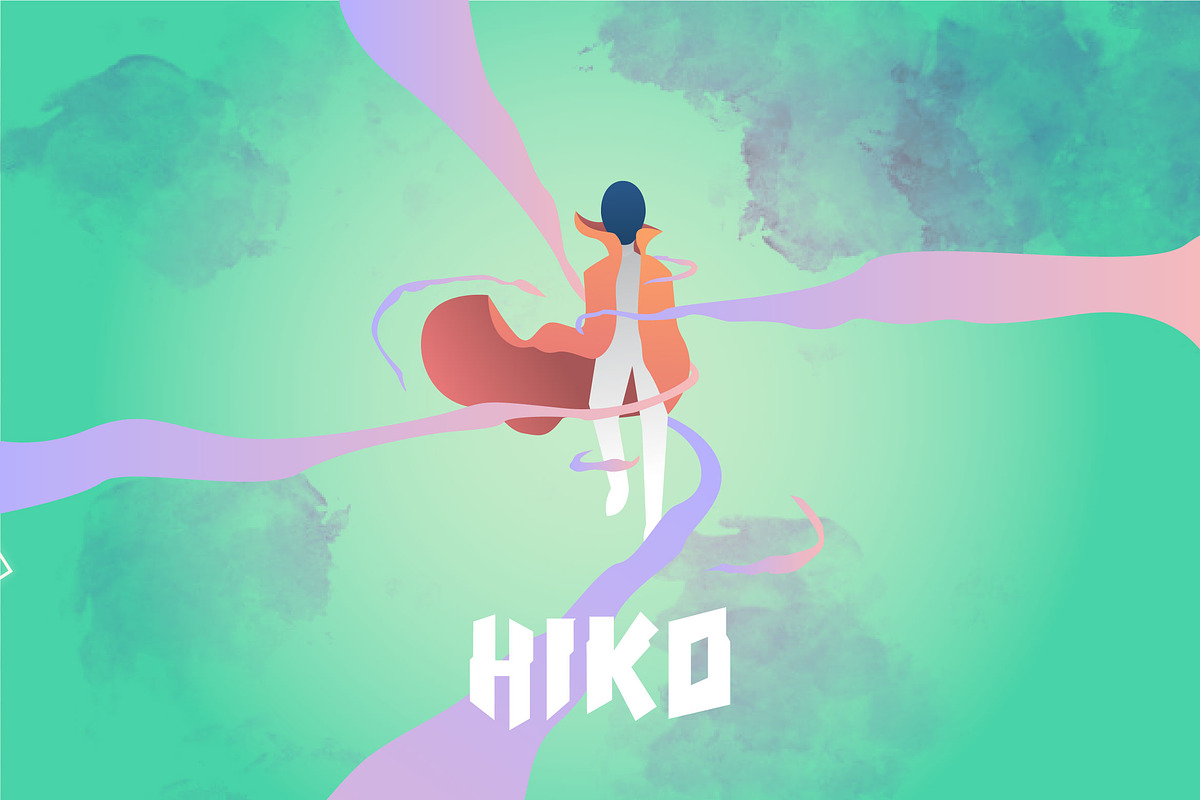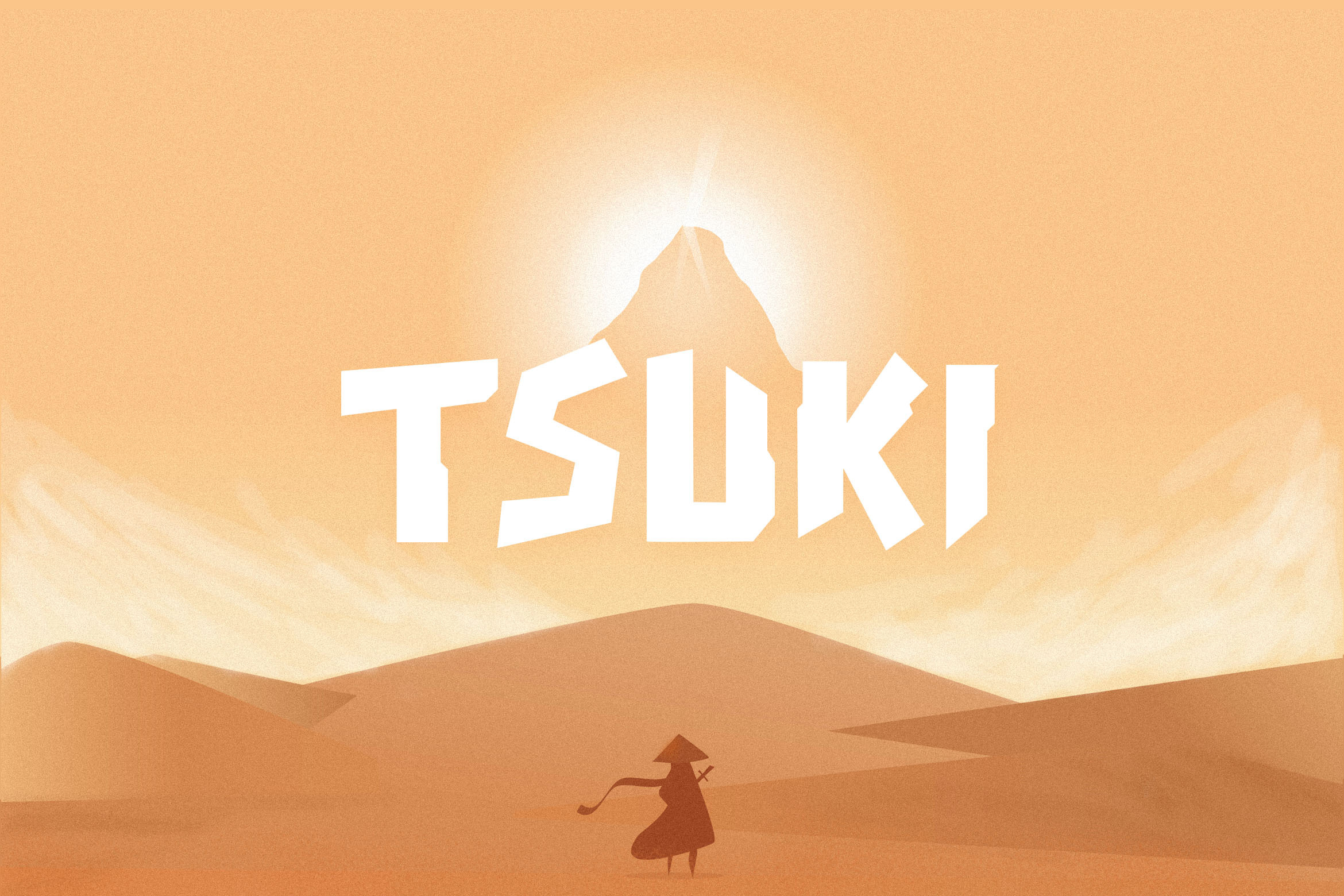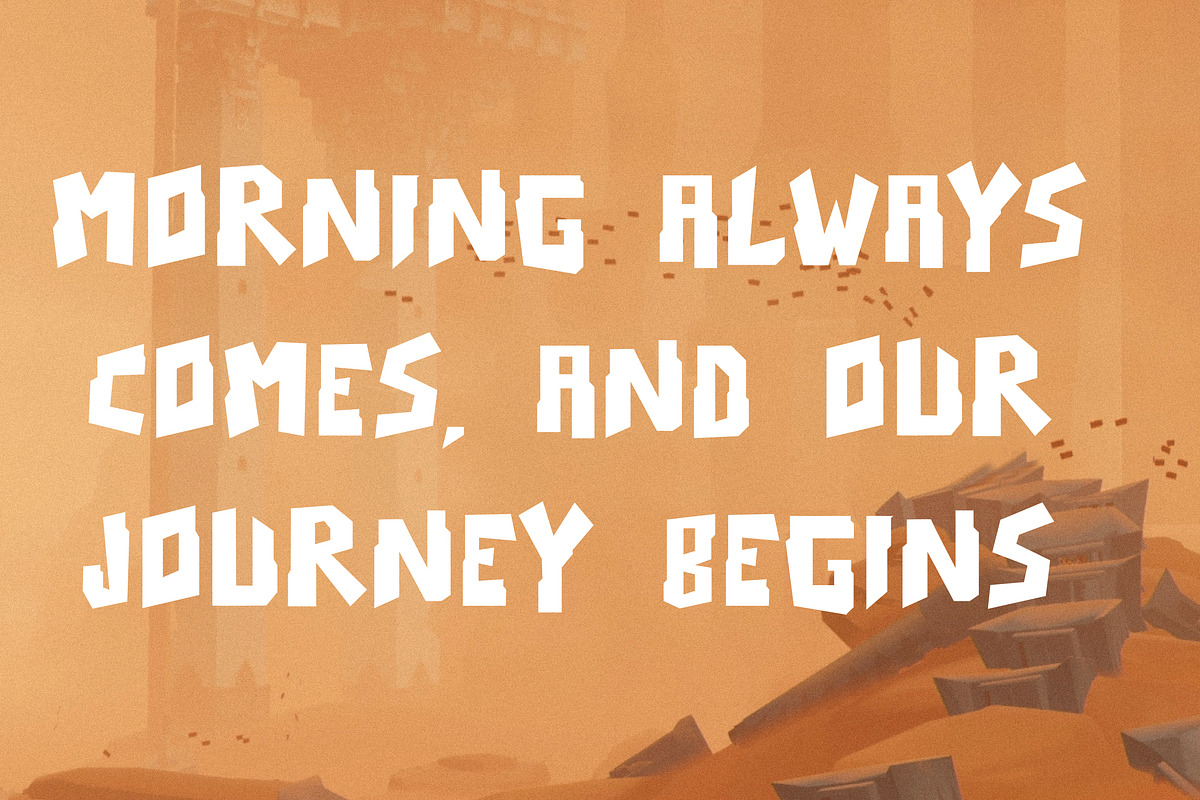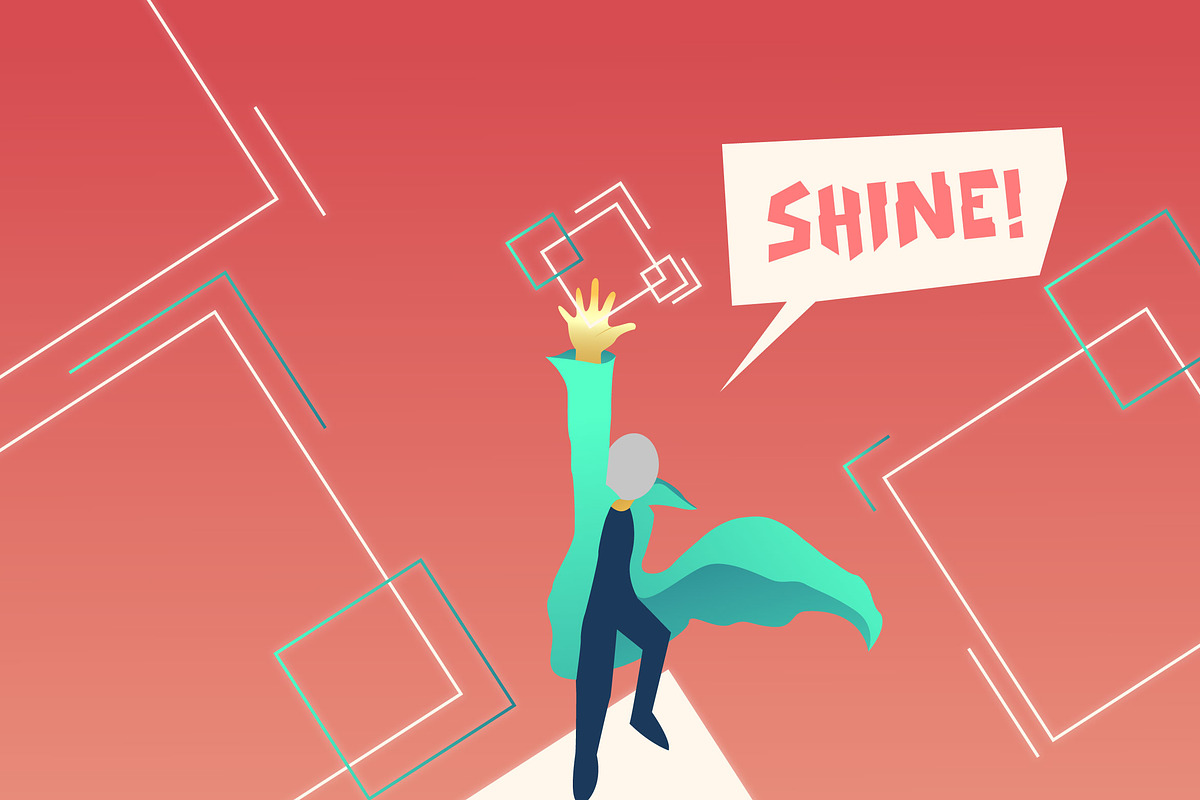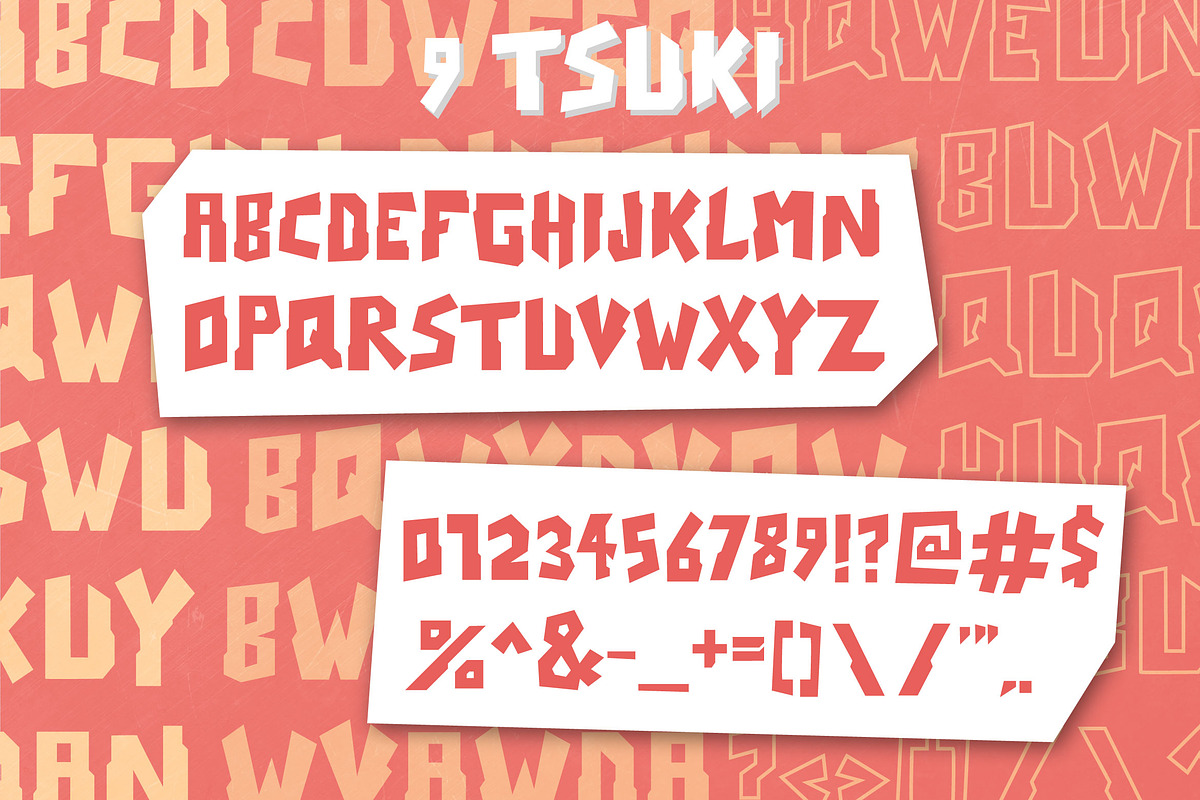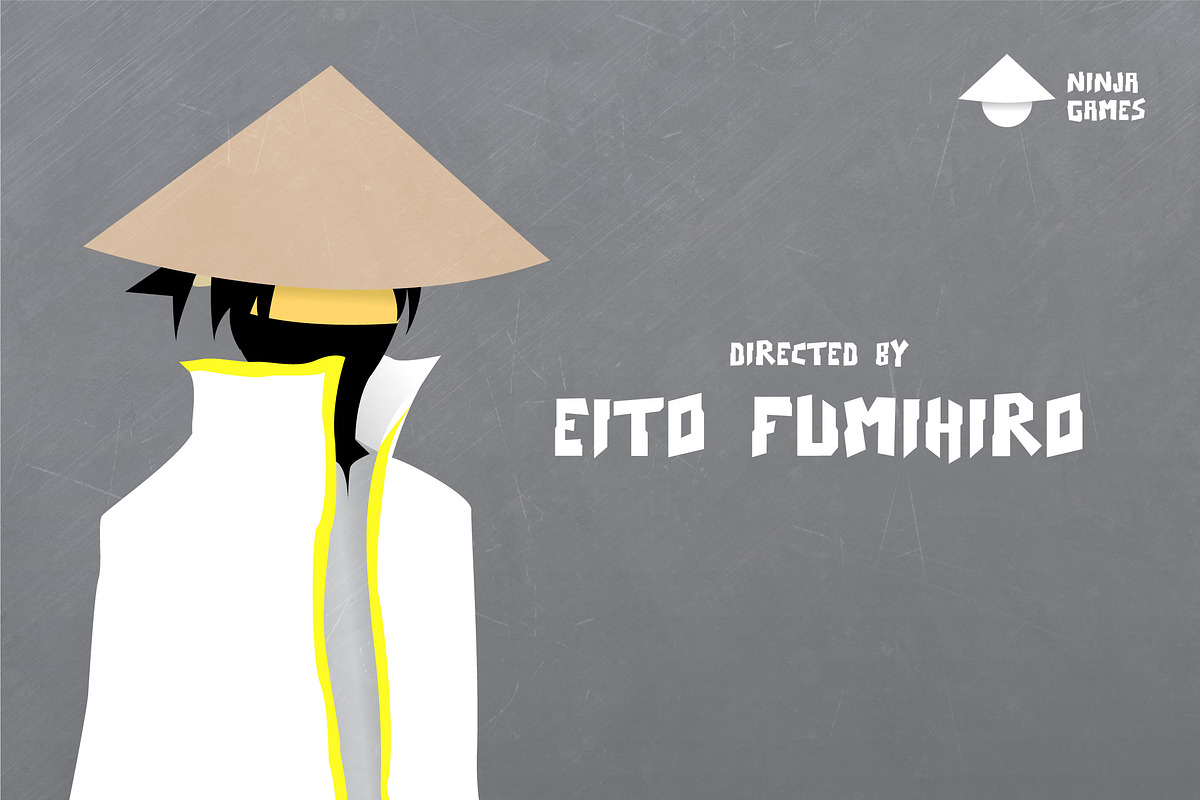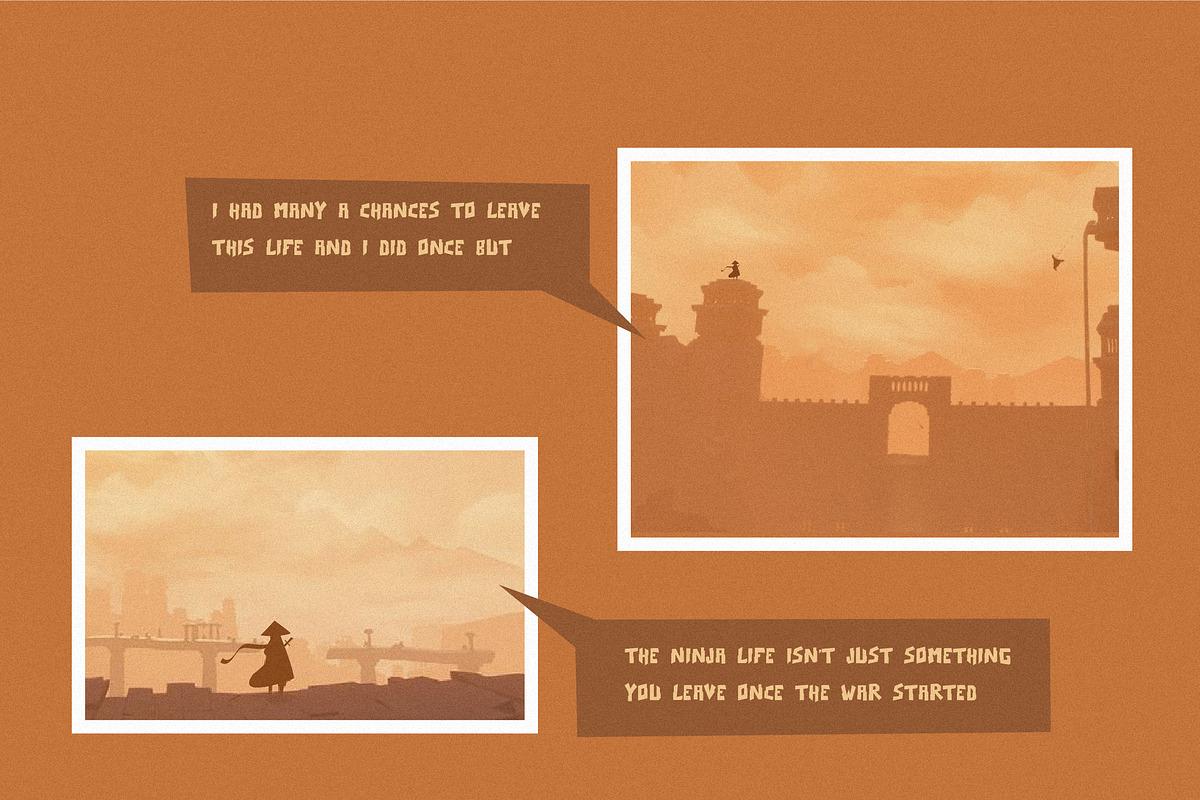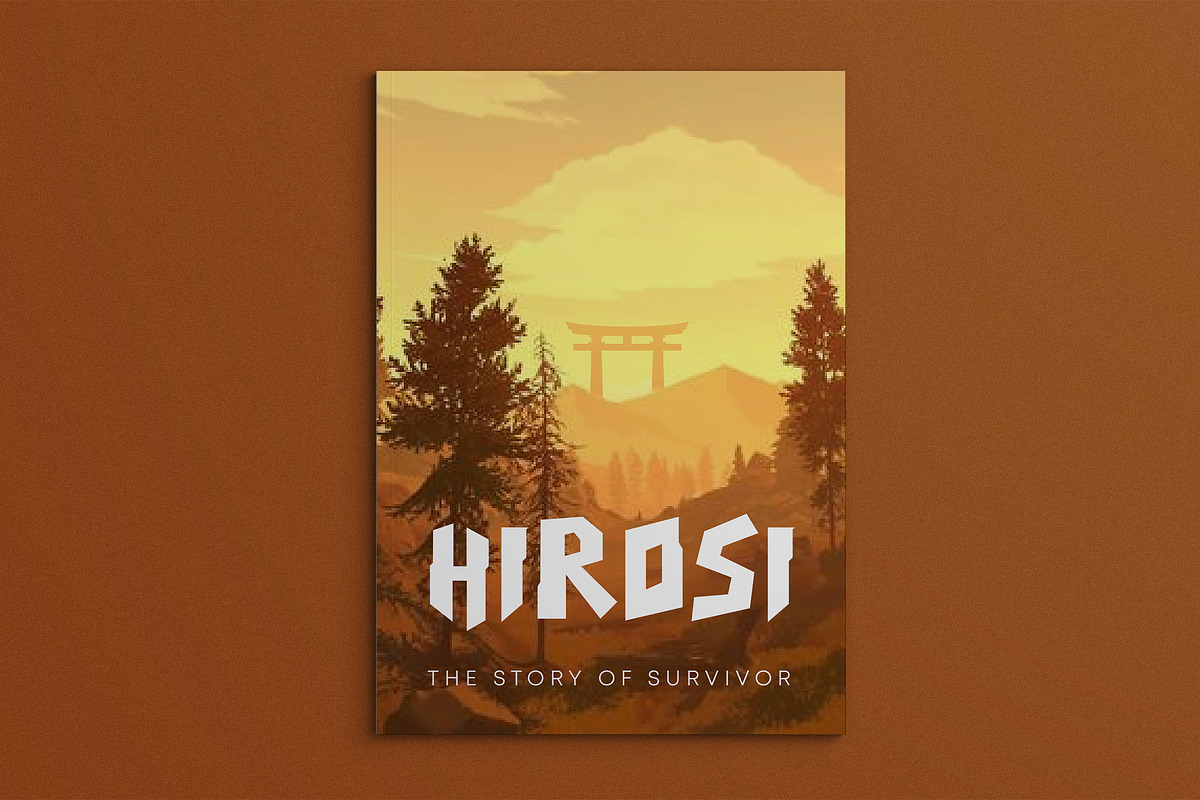
Tsuki Typeface
Tsuki is a sans-serif font. Inspired with concept & theme from Japanese Manga and video games. You can use this font for comics, games, and many more. For example, you can see the preview on this font page!